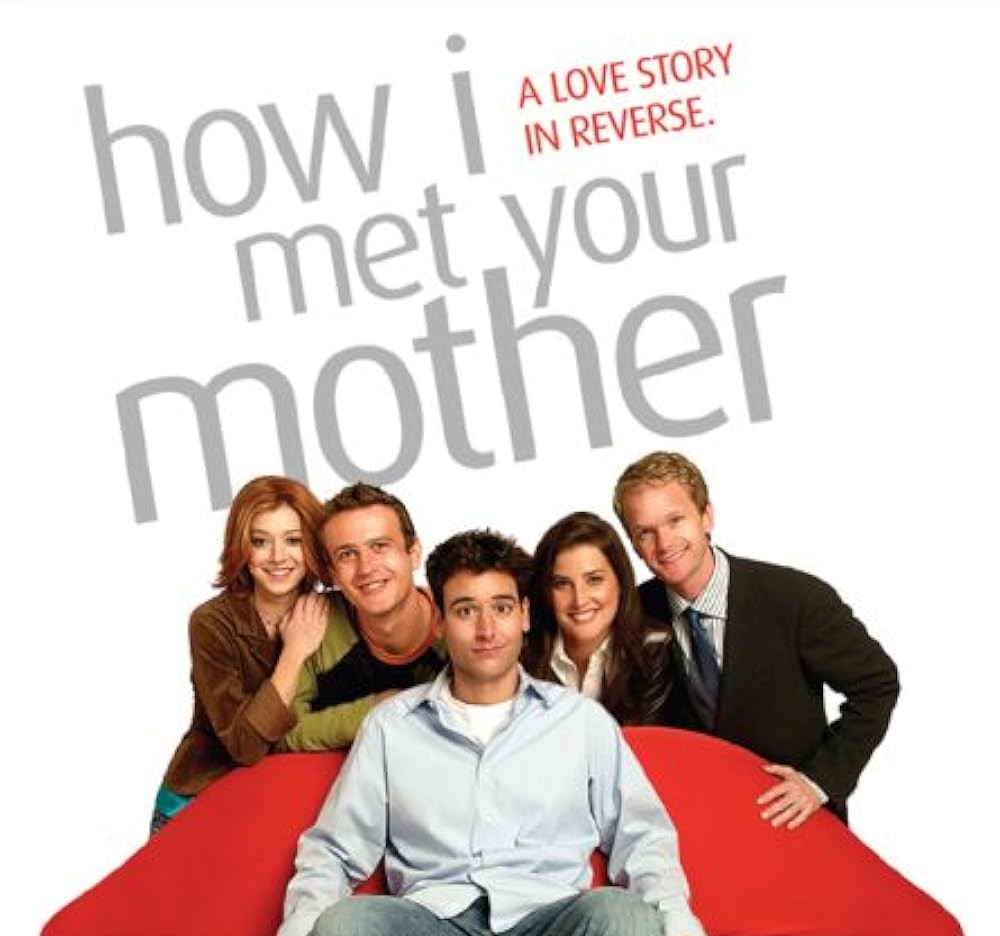
How I Met Your Mother Font
The How I Met Your Mother Font is sleek, modern, and subtly playful, perfectly matching the tone of the series. Its clean sans-serif design conveys a contemporary, approachable style, while the bold yellow umbrella imagery tied to the show adds a memorable and distinctive touch. This combination of simplicity and character makes the font instantly recognizable to fans.
Its casual yet stylish design reflects the show’s perfect blend of humor, friendship, and heartfelt storytelling. The font works well for fan projects, posters, or any design that wants to evoke the charm and personality of the series.
About How I Met Your Mother
How I Met Your Mother premiered in 2005 and ran for nine seasons, exploring life, love, and friendship in New York City. Through Ted Mosby’s narration of meeting the mother of his children, the show combined comedy with heartfelt storytelling, delivering iconic catchphrases, unforgettable moments, and a lasting impact on sitcom history.